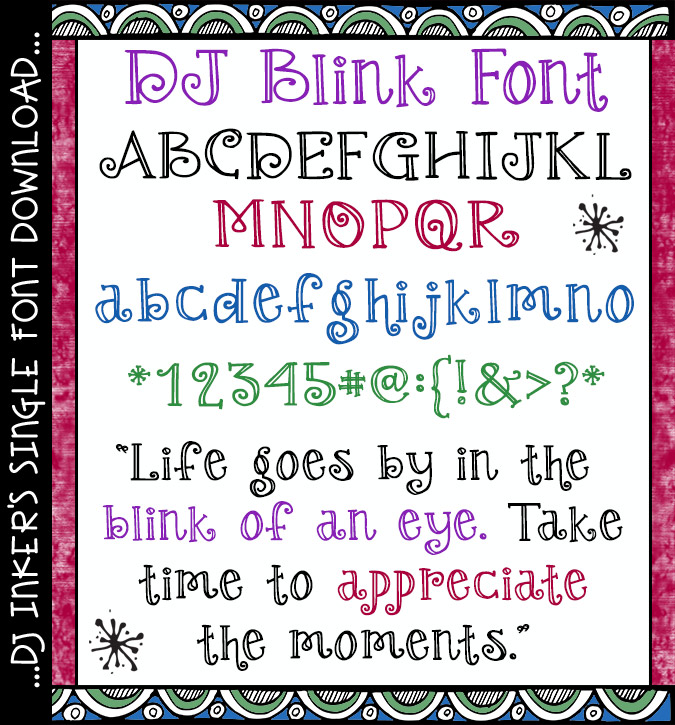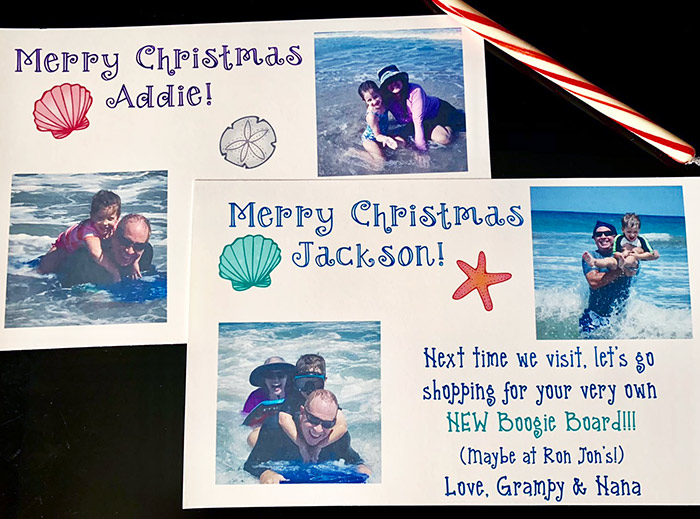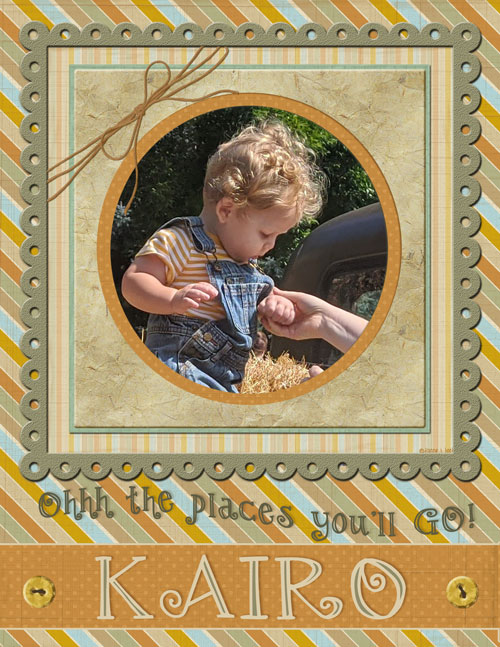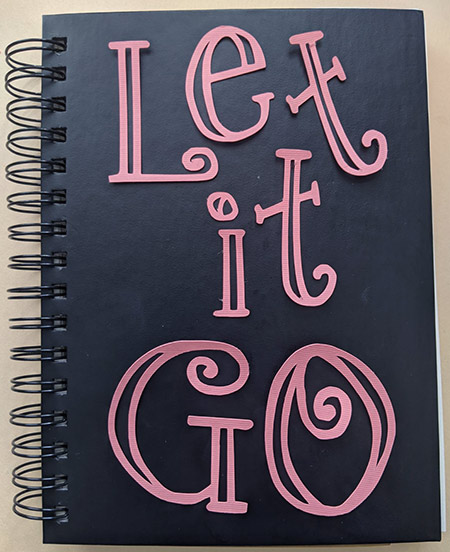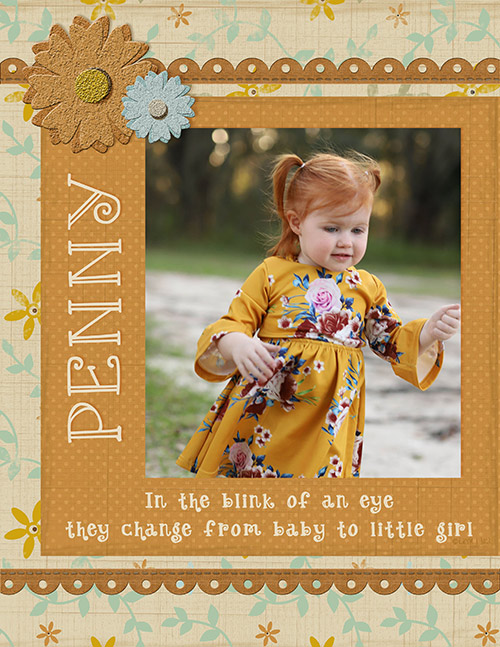
DJ Blink Font Download
You can type up a smile in the blink of an eye with this delightful font
by DJ Inkers. Whether you need an eye-catching headline or a little something
short and sweet, DJ Blink is sure to add personality and charm to
your creations.